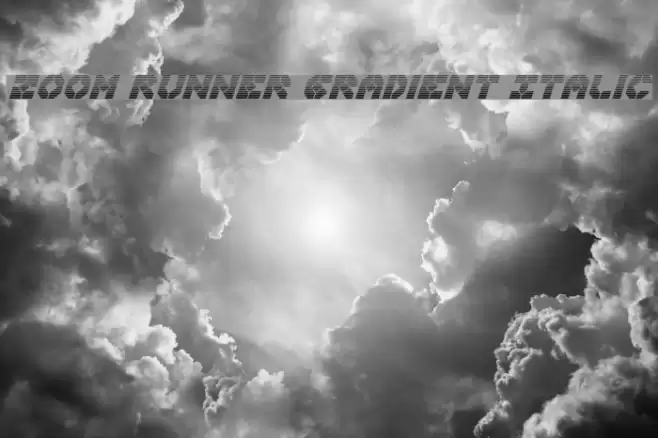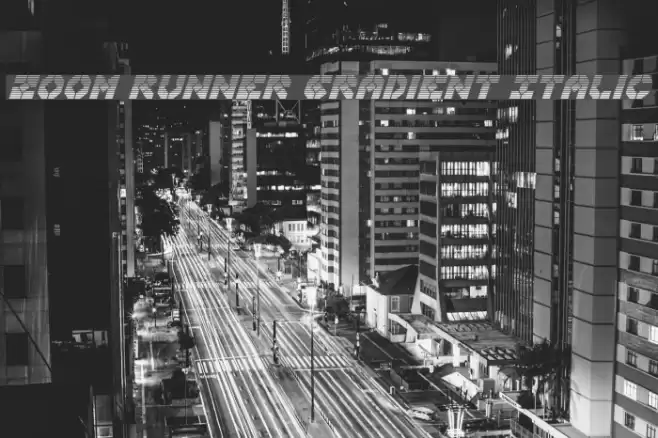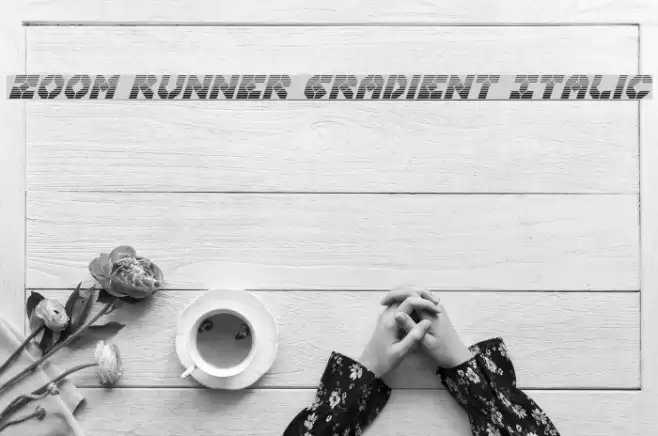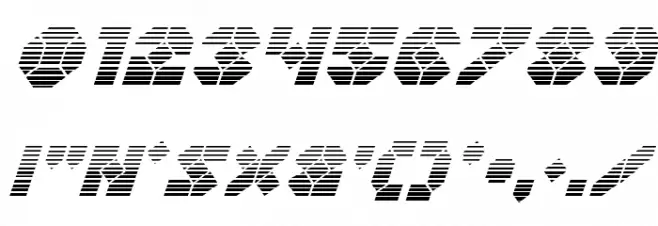
Zoom Runner Gradient Italic Font
Zoom Runner Gradient Italic Description
This font features a dynamic, futuristic style characterized by its italicized, gradient-striped design. Each character is composed of horizontal lines that create a sense of motion and speed, making it ideal for projects that require a modern and energetic aesthetic. The uppercase and lowercase letters, along with numbers and special characters, maintain a consistent slanted orientation, enhancing the sense of forward movement. The font's unique design is suitable for eye-catching headlines, sports branding, or any creative project that aims to convey a sense of innovation and progress.
A futuristic, italicized font with gradient-striped characters conveying motion from Sci-fi fonts.
- Proposed Projects: Ideal for sports branding, futuristic designs, tech-related projects, and dynamic advertising.
- Contrast: High